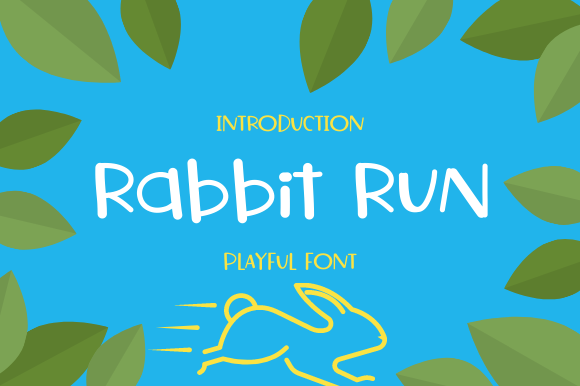
Rabbit Run Font
Get ready to be whisked away to a world of laughter and delight with Rabbit Run Font, the ultimate display font that oozes cuteness, quirkiness, and friendliness. Crafted by the talented getartstudio, this font is a captivating masterpiece that will infuse your creations with a touch of pure joy.
Picture this: Your designs transformed into playful masterpieces, your children's games bursting with whimsy, and your posters radiating a cheerful aura. Rabbit Run Font holds the power to make everything it adorns simply irresistible. Its enchanting charm is perfect for bringing life to your brand names, book covers, and all manner of creations that crave a sprinkle of happiness.
So, why settle for ordinary when you can embrace the extraordinary? Download Rabbit Run Font today and let its magical touch elevate your creations to new heights of cuteness and fun. It's the font that will ignite your imagination and make every project a celebration of joy and laughter.